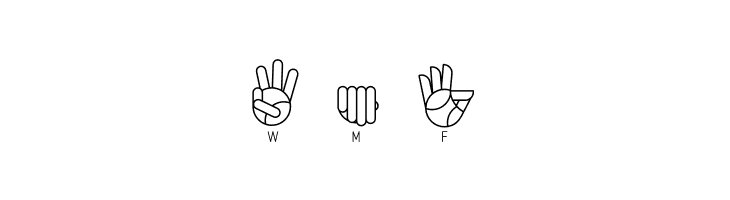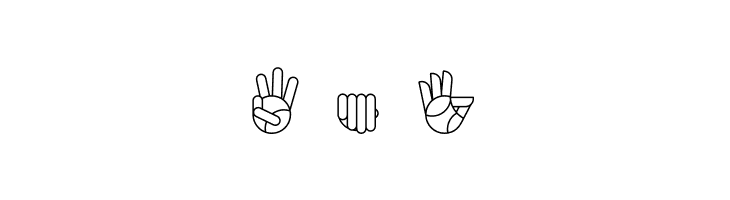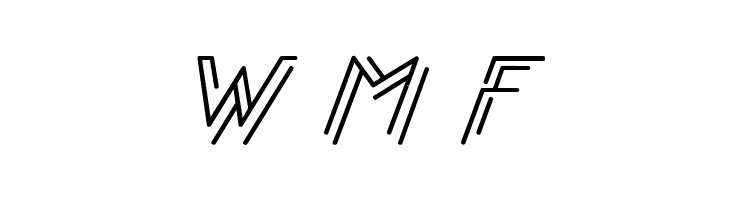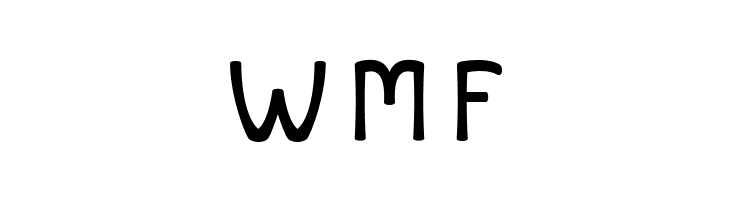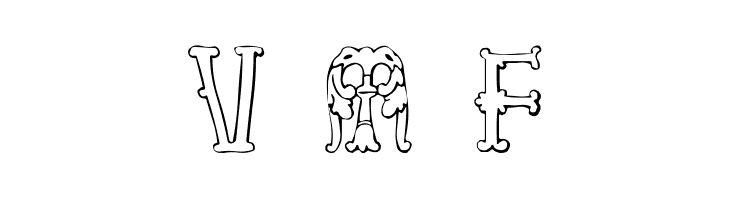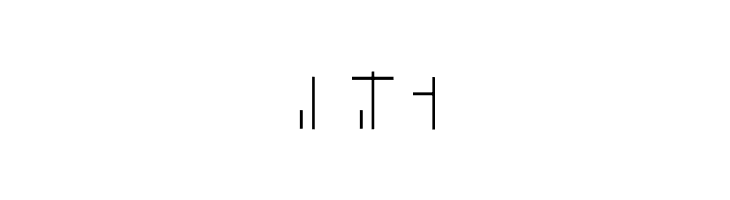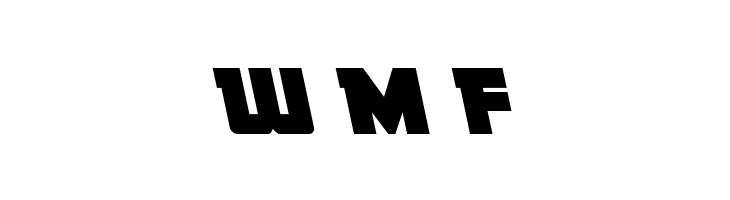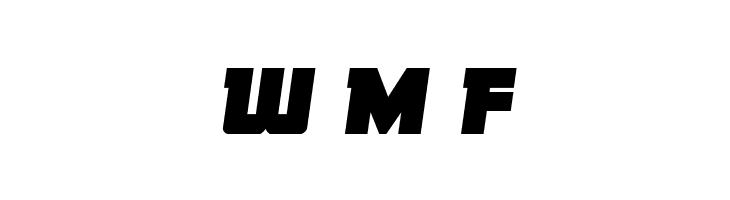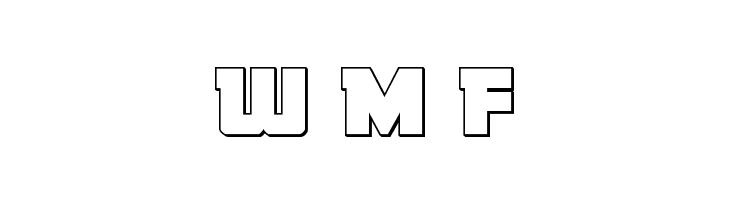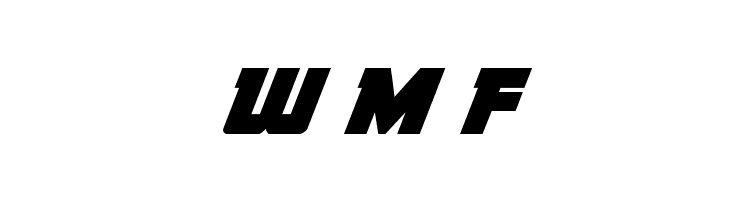
A bold, outlined, italic font with a modern and dynamic style.
A bold, angular, and slightly italicized font with a dynamic and energetic style.
A bold, italic font with a dynamic and angular style.
A modern, clean sans-serif font with excellent readability.
A bold, playful font with rounded edges and a whimsical style.
A bold, italic font with rounded characters and a dynamic, energetic style.
A playful, rounded, and extra light font with a modern and minimalist style.
A delicate, extra light italic font with smooth, flowing lines.
A playful, rounded font with smooth curves and a friendly appearance.
A playful, rounded font with a modern yet classic charm.
A bold, calligraphic font with sharp, angular strokes and a traditional flair.
A modern, artistic font with geometric and abstract elements.
A bold pictogram font of library and book-themed icons.
Outlined, hand gesture-based font inspired by sign language.
A series of hand gesture symbols representing letters and numbers, styled for clarity and recognition.
A clean, modern sans-serif font with consistent stroke width and excellent readability.
A bold, modern serif font with strong serifs and a classic yet contemporary look.
A bold, italic serif font with a modern and elegant style.
An elegant serif font with a modern, italicized style.
A refined serif font with balanced proportions and classic elegance.
A futuristic, geometric font with angular, multi-line characters.
A decorative font that replicates the appearance of a barcode with vertical bars.
A barcode-inspired font with high contrast and tight spacing, ideal for modern and technical designs.
A barcode-style font with vertical line patterns for each character.
A barcode-style font with geometric, structured lines for a modern, industrial look.
A functional barcode-style font designed for scanning accuracy.
A barcode style font that replicates the look of traditional barcodes with clear, distinct characters.
A classic serif typeface with elegant serifs and balanced stroke contrast.
A classic serif typeface with high contrast and elegant design.